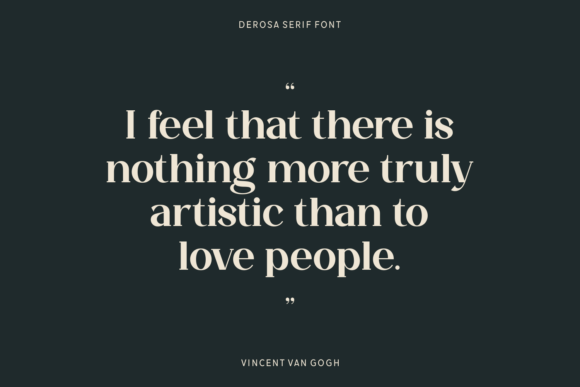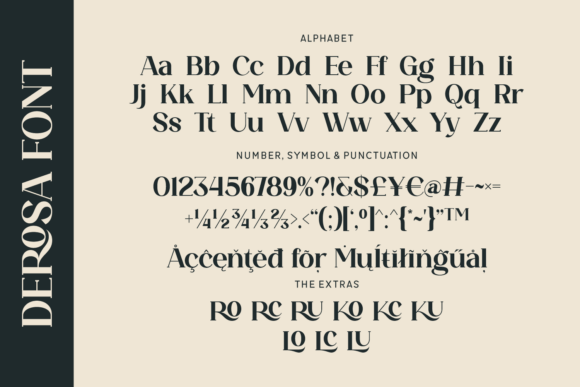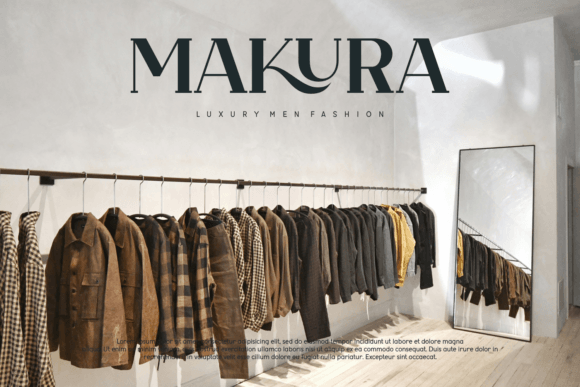
Discover the Elegance of Derosa Font: Elevate Your Designs with Sophistication
In the world of typography, a good font can make all the difference in the success of a design project. For those seeking a touch of elegance and sophistication, the Derosa font is an excellent choice. This stylish editorial serif font is designed to bring a refined aesthetic to both print and digital projects, making it a versatile tool for designers and crafters alike.
The Unique Features of Derosa Font
What sets Derosa apart from other serif fonts is its elegant ligatures. These special characters create smooth connections between letters, enhancing both readability and visual appeal. The result is a text that flows beautifully, making it perfect for a variety of applications, from magazines and invitations to branding and advertising.
The classic design of Derosa ensures that it remains timeless, never going out of style. Its sophisticated look can add a touch of elegance to any text, making it stand out in a crowded design landscape. Whether you’re working on a high-end fashion magazine, a luxury brand’s marketing materials, or a formal invitation, Derosa provides the perfect typographic solution.
Applications of Derosa Font
Derosa’s versatility makes it suitable for a wide range of design projects. Here are some of the key areas where this font truly shines:
- Magazines and Editorials: The elegant ligatures and classic serif design make Derosa ideal for magazine layouts, editorials, and any publication aiming for a sophisticated look.
- Invitations and Weddings: For formal events, such as weddings, galas, or corporate events, Derosa adds a touch of luxury and refinement to invitations and related materials.
- Branding and Advertising: Brands looking to convey elegance, sophistication, and a sense of tradition can benefit from using Derosa in their branding and advertising efforts.
- Digital Projects: In addition to print, Derosa is also optimized for digital use, making it suitable for websites, digital magazines, and social media graphics.
Why Choose Derosa Font?
There are several reasons why designers and crafters should consider Derosa for their projects:
- Elegance and Sophistication: Derosa brings an unmatched level of elegance and sophistication to any design, making it perfect for projects that require a refined aesthetic.
- Readability: The ligatures in Derosa not only add to its beauty but also improve readability, ensuring that the text is easy to read and understand.
- Versatility: Its classic design and elegant features make Derosa versatile enough to be used in a wide range of projects, from traditional print materials to modern digital content.
- Timeless Appeal: Unlike trendy fonts that may quickly become outdated, Derosa’s classic design ensures it remains stylish and relevant for years to come.
How to Use Derosa Font Effectively
To make the most of Derosa, consider the following tips:
- Pair with Complementary Fonts: While Derosa is elegant on its own, pairing it with complementary fonts can enhance its beauty and create visual interest.
- Adjust Ligatures: Experiment with the ligatures to find the right balance for your design. This can help in achieving a unique look that stands out.
- Consider Size and Weight: Play with different sizes and weights of Derosa to create hierarchy and emphasis in your design.
Derosa font offers a unique blend of elegance, sophistication, and versatility, making it an excellent choice for designers and crafters looking to elevate their projects. With its elegant ligatures, classic serif design, and suitability for both print and digital applications, Derosa can add a refined touch to any design. Whether you’re working on a magazine, an invitation, or a branding project, Derosa is sure to make your work stand out.
By incorporating Derosa into your typography arsenal, you’ll have access to a font that combines timeless appeal with modern design sensibilities. So, why settle for ordinary when you can add a touch of elegance with Derosa? Explore the possibilities of Derosa font today and discover how it can transform your designs.